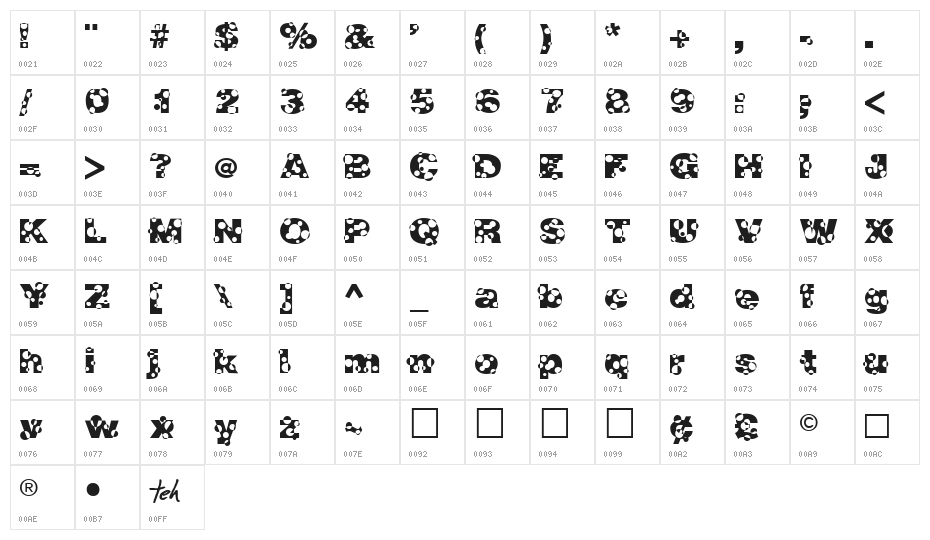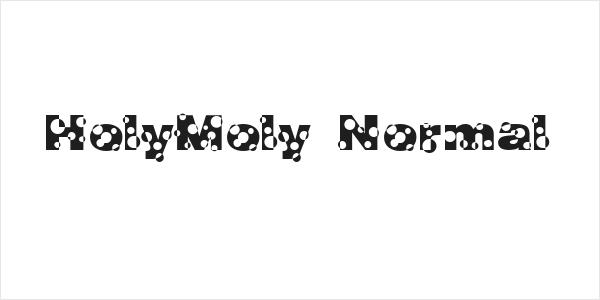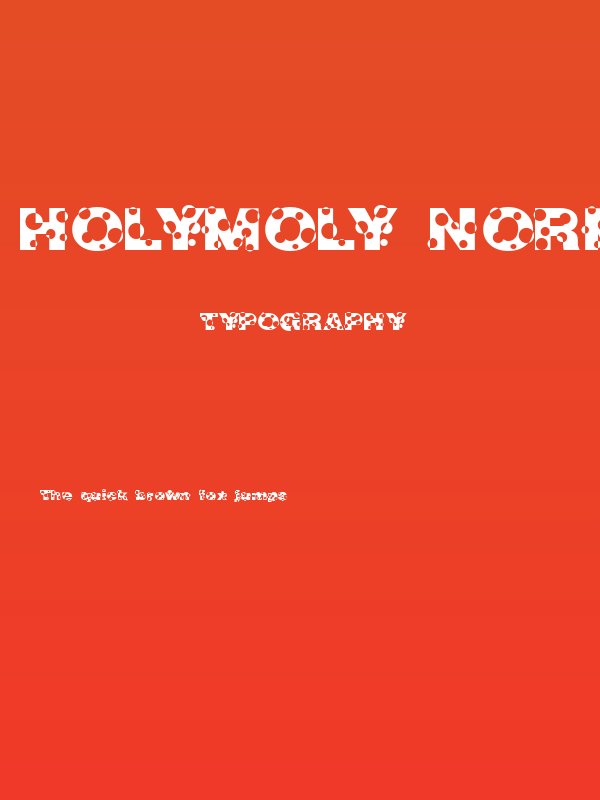
HolyMoly Normal Font
HolyMoly Normal Description
This font features a bold and playful design with a unique pattern of circular cutouts within each character, creating a visually striking effect. The characters are robust and heavily weighted, making them stand out prominently. The circular cutouts add a whimsical and decorative touch, making it ideal for creative and artistic projects. The font maintains a consistent thickness throughout, with no variation in stroke width, contributing to its bold appearance. The overall style is modern and decorative, with a touch of fun and creativity.
| Overall Style | Modern, Decorative |
| Proposed Projects | Ideal for posters, logos, children's book covers, and playful branding materials. |